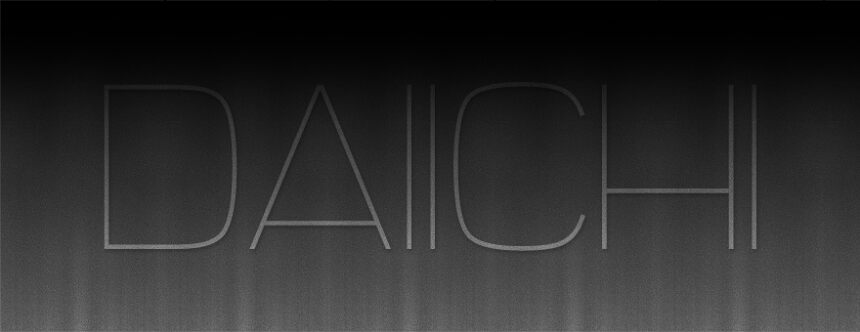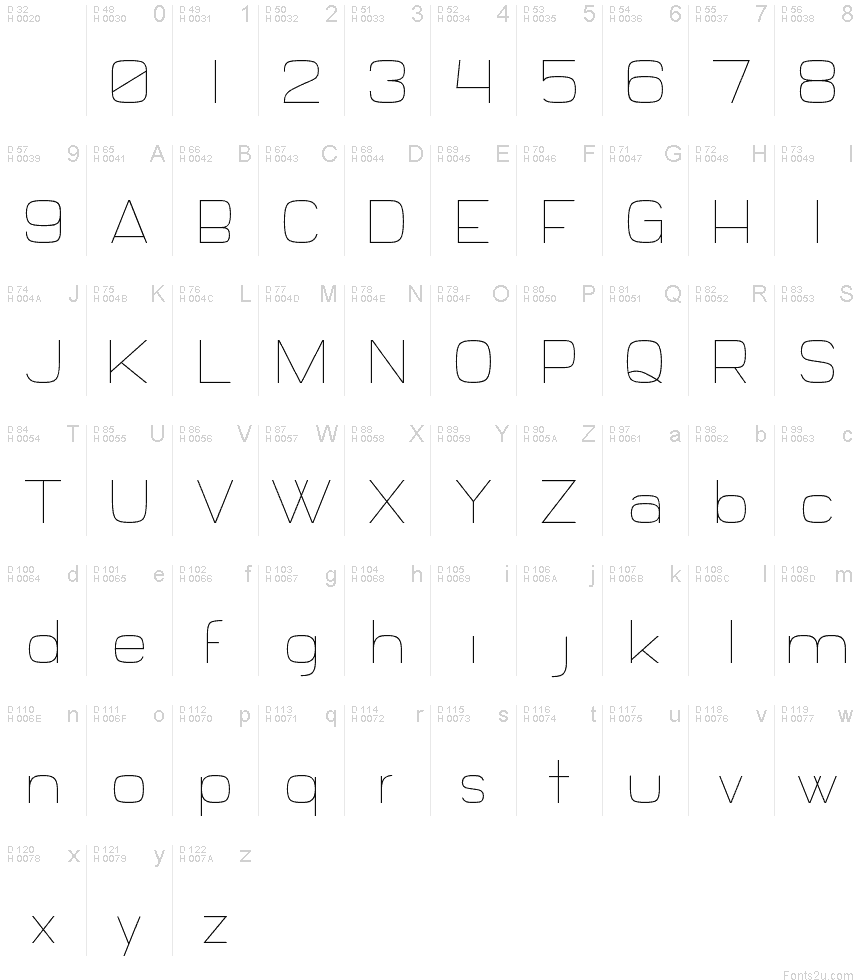
Daiichi is a free geometric sans serif with exceptionally light strokes and broad, airy proportions. Its rounded bowls sit beside sharply peaked forms. The drawing feels precise and restrained.
Designers working in fashion, architecture, and upscale hospitality will find its lean silhouette especially apt for branding. It also suits exhibition posters and magazine covers, where the wide letters lend a cool, measured pace. Museum signage and event programs benefit from the same fine-boned, architectural quality.
This is a thin-weight title font.